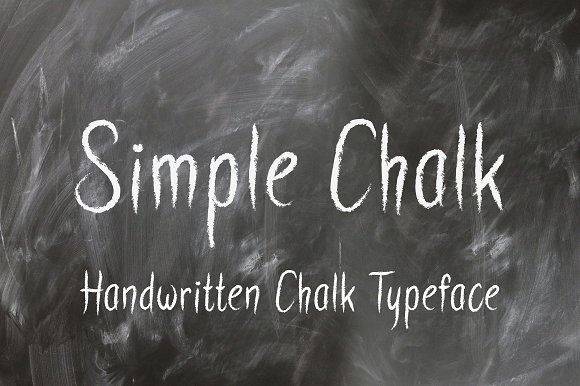
Simple Chalk Font: A Comprehensive Guide to the Classic Font
The Simple Chalk font is a popular and versatile font that has been widely used in various design projects. Created by Darwinoo, this font has gained a significant following among designers and artists due to its unique and charming characteristics. In this article, we will explore the Simple Chalk font, its features, and its uses, as well as provide a detailed overview of the font created by Darwinoo.
What is Simple Chalk Font?
Simple Chalk font is a type of font that mimics the look of handwriting with a chalk or a marker. It is characterized by its smooth, rounded lines and a distinctive texture that gives it a nostalgic and retro feel. The font is often used in designs that require a personal and informal touch, such as posters, flyers, and social media graphics.
Features of Simple Chalk Font
The Simple Chalk font has several features that make it a popular choice among designers. Some of its key features include:
- Unique Texture: The font has a distinctive texture that gives it a chalk-like appearance.
- Smooth Lines: The font features smooth, rounded lines that make it easy to read.
- Versatile: The font can be used in a variety of design projects, from posters to digital graphics.
- Easily Readable: The font is highly legible, making it suitable for use in body text.
Simple Chalk Font Created by Darwinoo
Darwinoo is a talented font designer who has created a range of beautiful and unique fonts, including the Simple Chalk font. The Simple Chalk font created by Darwinoo is a high-quality font that features a distinctive chalk-like texture and smooth lines. The font is designed to be highly legible and versatile, making it suitable for use in a variety of design projects.
Characteristics of Simple Chalk Font by Darwinoo
The Simple Chalk font created by Darwinoo has several characteristics that make it a standout font. Some of its key characteristics include:
- Handwritten Style: The font features a handwritten style that gives it a personal and informal touch.
- Chalk-Like Texture: The font has a distinctive chalk-like texture that gives it a unique appearance.
- Highly Legible: The font is highly legible, making it suitable for use in body text.
Uses of Simple Chalk Font
The Simple Chalk font is a versatile font that can be used in a variety of design projects. Some of the most common uses of the font include:
- Posters and Flyers: The font is often used in posters and flyers due to its bold and eye-catching appearance.
- Social Media Graphics: The font is also used in social media graphics, such as Facebook posts and Instagram stories.
- Logos and Branding: The font can be used in logos and branding materials to give a personal and informal touch.
- Digital Graphics: The font can be used in digital graphics, such as infographics and presentations.
Benefits of Using Simple Chalk Font
The Simple Chalk font offers several benefits to designers and artists. Some of the key benefits of using the font include:
- Unique Appearance: The font has a unique and distinctive appearance that sets it apart from other fonts.
- Easily Readable: The font is highly legible, making it suitable for use in body text.
- Versatile: The font can be used in a variety of design projects, from posters to digital graphics.
- Cross-Platform Compatibility: The font is compatible with a range of devices and operating systems, making it easy to use in different design projects.
The Simple Chalk font is a unique and versatile font that has gained a significant following among designers and artists. Created by Darwinoo, this font features a distinctive chalk-like texture and smooth lines that make it highly legible and suitable for use in a variety of design projects. With its ease of use and cross-platform compatibility, the Simple Chalk font is a great addition to any designer’s font library.
- What is Simple Chalk font? Simple Chalk font is a type of font that mimics the look of handwriting with a chalk or a marker.
- Who created Simple Chalk font? The Simple Chalk font was created by Darwinoo, a talented font designer.
- What are the characteristics of Simple Chalk font? The Simple Chalk font features a distinctive chalk-like texture, smooth lines, and a handwritten style.
- What are the uses of Simple Chalk font? The Simple Chalk font can be used in a variety of design projects, including posters, flyers, social media graphics, logos, and branding materials.